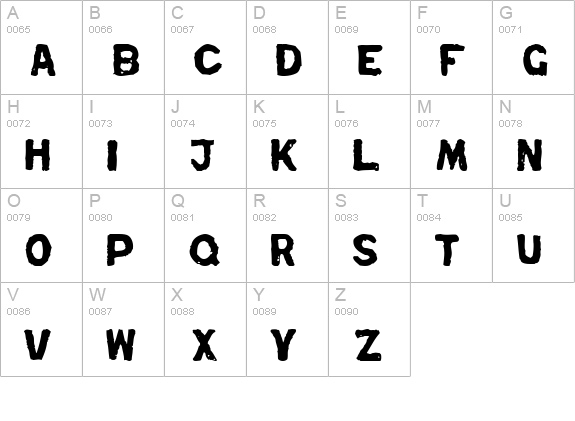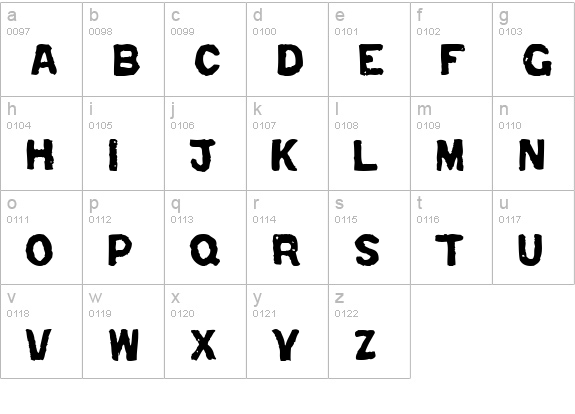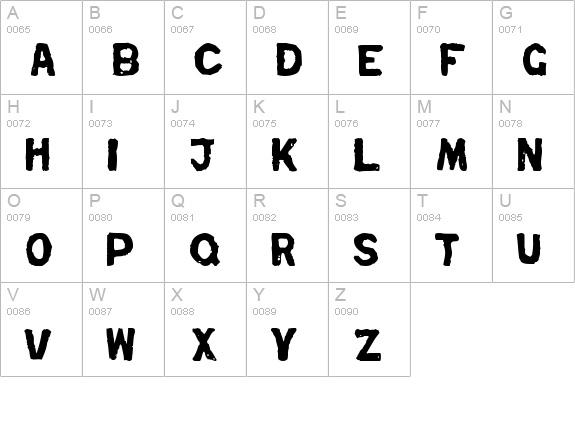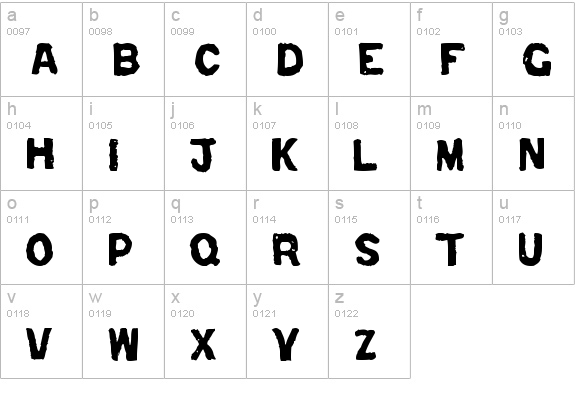
Repent Font Details
Introducing Repent font, a captivating and versatile typeface that effortlessly captures attention and leaves a lasting impression. With its elegant and sophisticated design, Repent font brings a touch of refinement to any project, whether it be for print or digital media. This beautiful font boasts a unique blend of modernity and classic charm, making it suitable for a wide range of applications. From eye-catching headlines to stylish logos, Repent font adds a touch of professionalism and style to every design. Its carefully crafted letterforms are meticulously balanced, ensuring legibility while still exuding an undeniable sense of personality. One of the remarkable aspects of Repent font is that it is available free of charge. That's right, you can freely download this remarkable font at FontsMarket.com, a trusted source for high-quality fonts. This means that you can enhance your creative endeavors without any financial constraints, allowing you to explore endless possibilities and unleash your artistic vision. Whether you're a professional designer, a creative enthusiast, or simply someone looking to add a touch of elegance to your personal projects, Repent font is the perfect choice. Its versatility, combined with its accessibility, makes it an invaluable asset for anyone seeking to make a memorable impact with their typography. So, why wait? Discover the captivating allure of Repent font today and experience the freedom of creative expression like never before. Download it for free at FontsMarket.com and unlock a world of design possibilities that will leave a lasting impression on your audience.